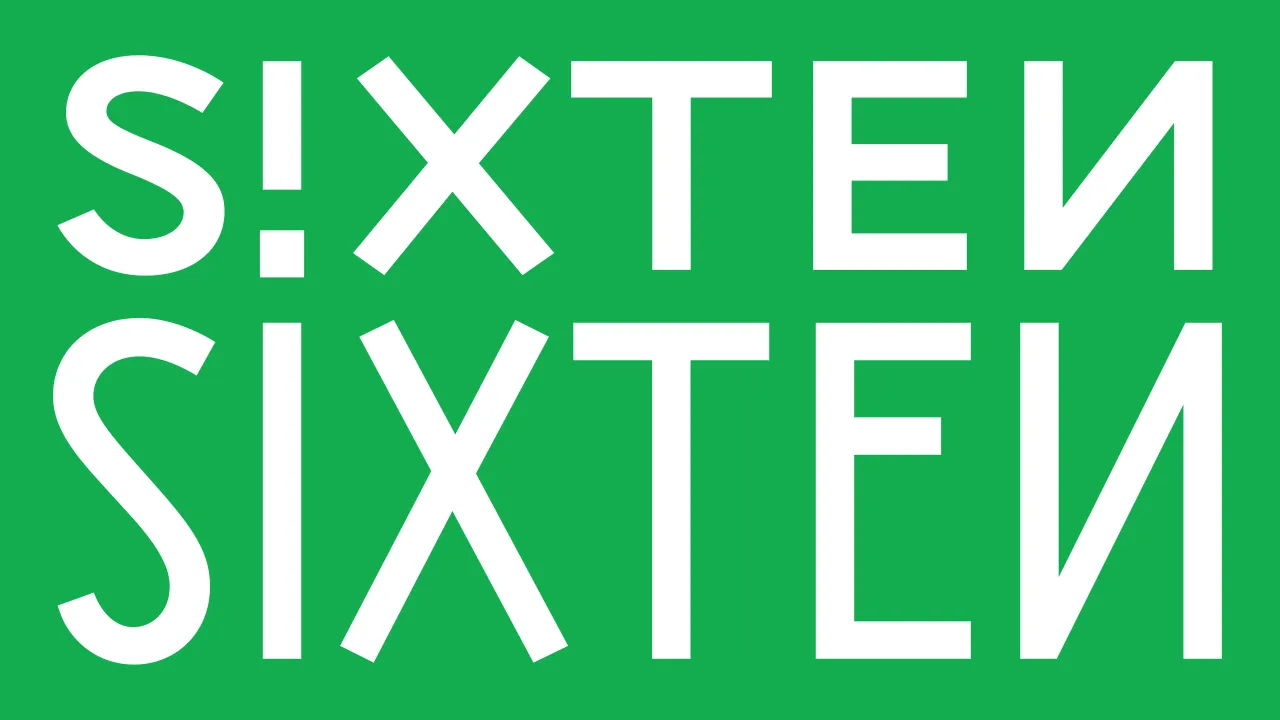
Heltar by The Northern Block
As we enter autumn, it feels like time for a fresh start. And so, as a designer, it's the perfect occasion to delve into the latest fonts on the market and consider updating your typographical toolkit.
To help you out, we've carefully curated a diverse selection of typefaces from leading foundries and designers, each of which brings its own unique character and functionality to the table.
From typefaces inspired by children's handwriting to those rooted in mid-20th-century Italian design, these fab new releases demonstrate the ongoing evolution and innovation in type design and offer plenty of scope to reinvigorate your design work.
So, whether you're working on branding projects, editorial layouts, or digital interfaces, let's explore the standout typefaces of September and discover how they can inspire and enhance your creative projects.
Peasy by Delve Fonts
Peasy, designed by Peter Cho, is a friendly, modern sans-serif typeface that balances readability and personality.
With its open apertures, comfortable x-height, and low-contrast strokes, Peasy offers excellent legibility across various applications. That makes it well-suited for editorial design in print and digital formats.
Its pleasant reading experience makes it ideal for long-form content, while its subtle flair adds character to headlines and pull quotes. Peasy could also excel in user interface design, signage and branding projects where a balance of clarity and warmth is desired.
More broadly, the typeface's broad language support, including Vietnamese and numerous African and Oceanic languages, makes it a versatile choice for global projects. Furthermore, OpenType features, such as small caps, old-style numerals and thoughtful stylistic alternates, provide a rich toolkit for creating nuanced typographic compositions.
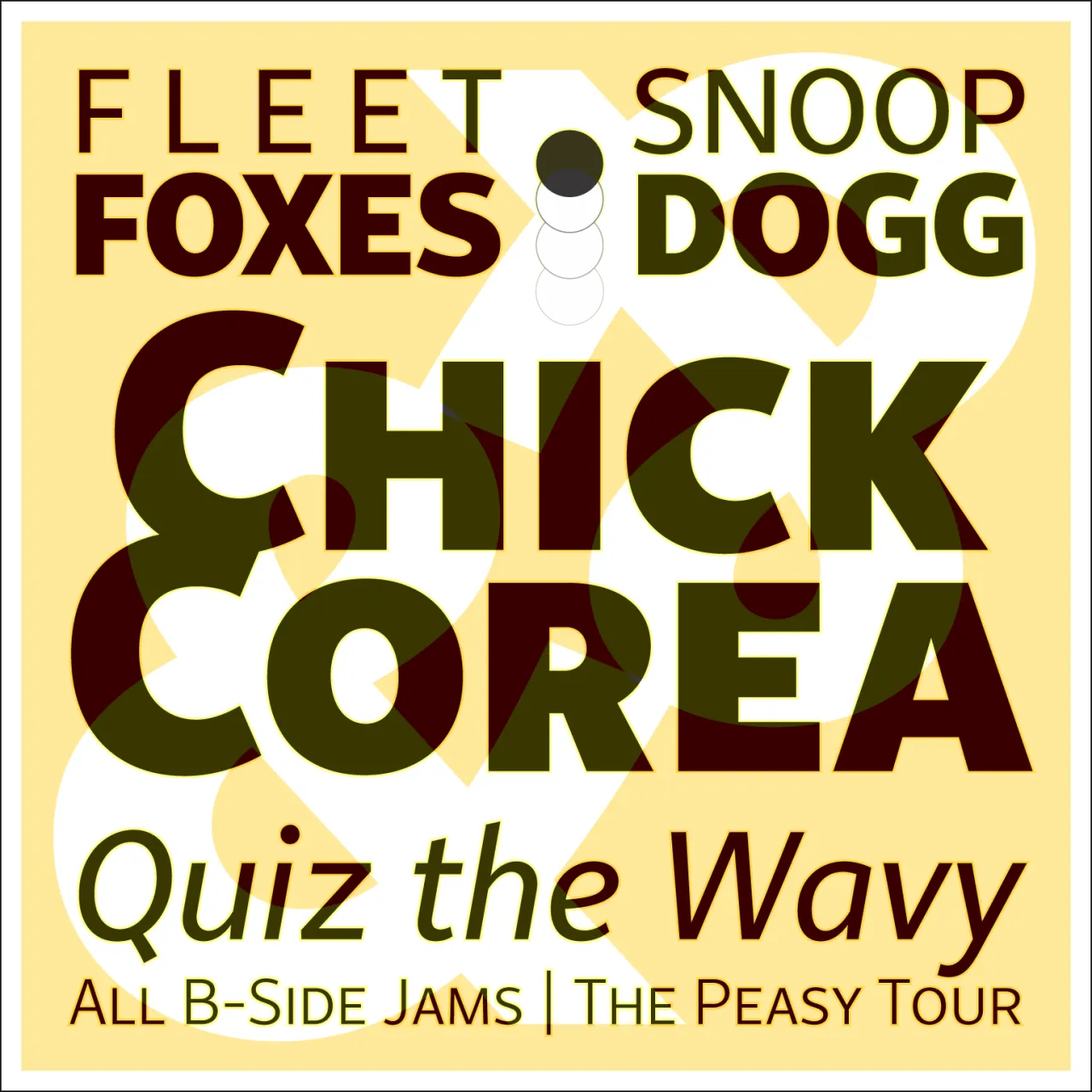
Peasy by Delve Fonts
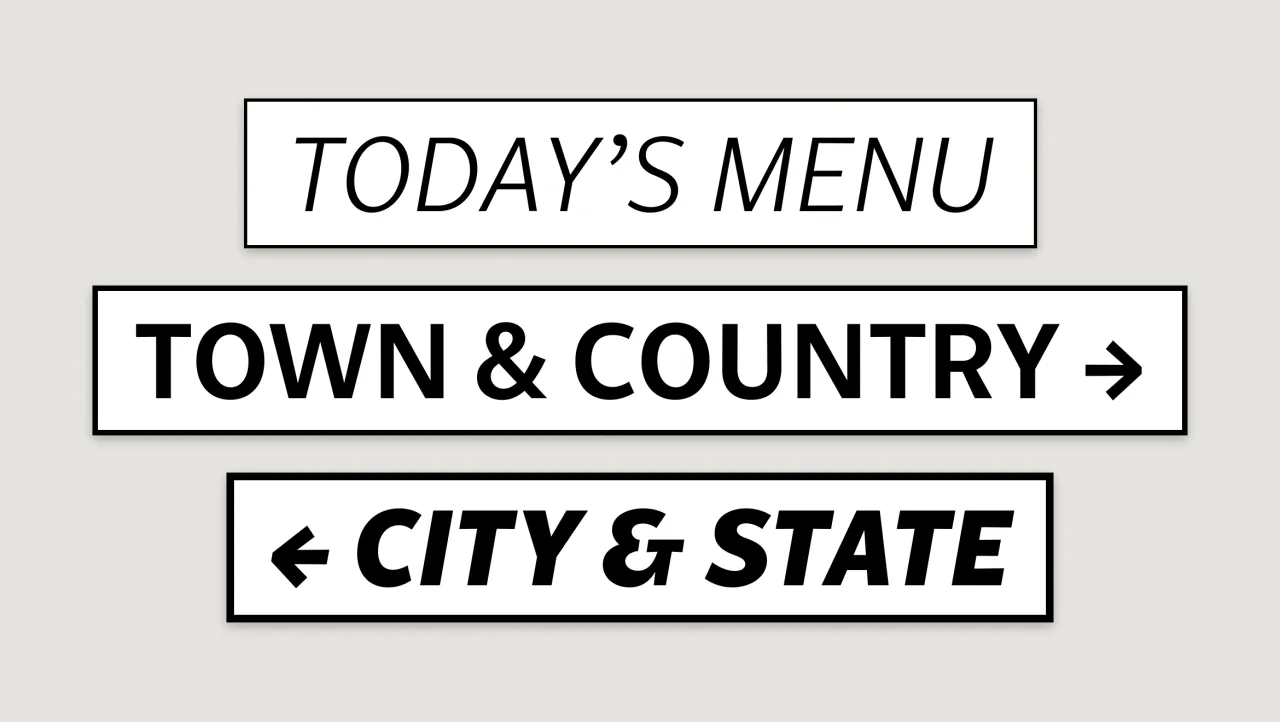
Peasy by Delve Fonts
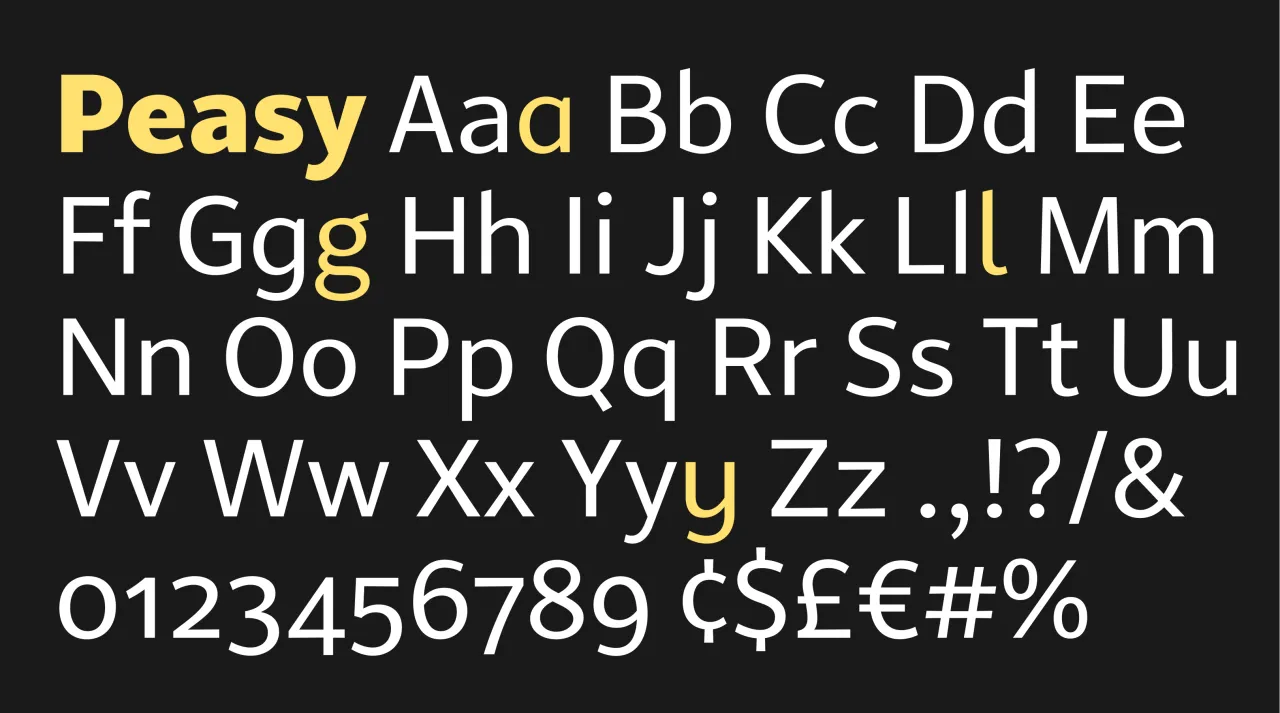
Peasy by Delve Fonts
Heltar by The Northern Block
Created by Jonathan Hill of The Northern Block, Heltar is a neo-grotesque typeface that pays homage to Helvetica while carving out its own distinct identity.
This typeface reimagines classic design principles for the digital age, featuring carefully crafted letterforms with optical precision and subtle corrections. Heltar's design incorporates innovative approaches to white space and stroke contrast, resulting in a typeface that feels both familiar and refreshingly contemporary.
With its range of weights and styles, Heltar is exceptionally versatile. Its thinner grades make it perfect for sleek, modern tech branding and user interfaces. As you move up to the bolder weights, Heltar takes on a more dramatic presence, suitable for impactful headlines and display text.
This typeface would be an excellent choice for forward-thinking brands, particularly in the technology, fashion or design sectors. It's also well-suited for editorial design, corporate communications, and anywhere a balance of authority and innovation is required.
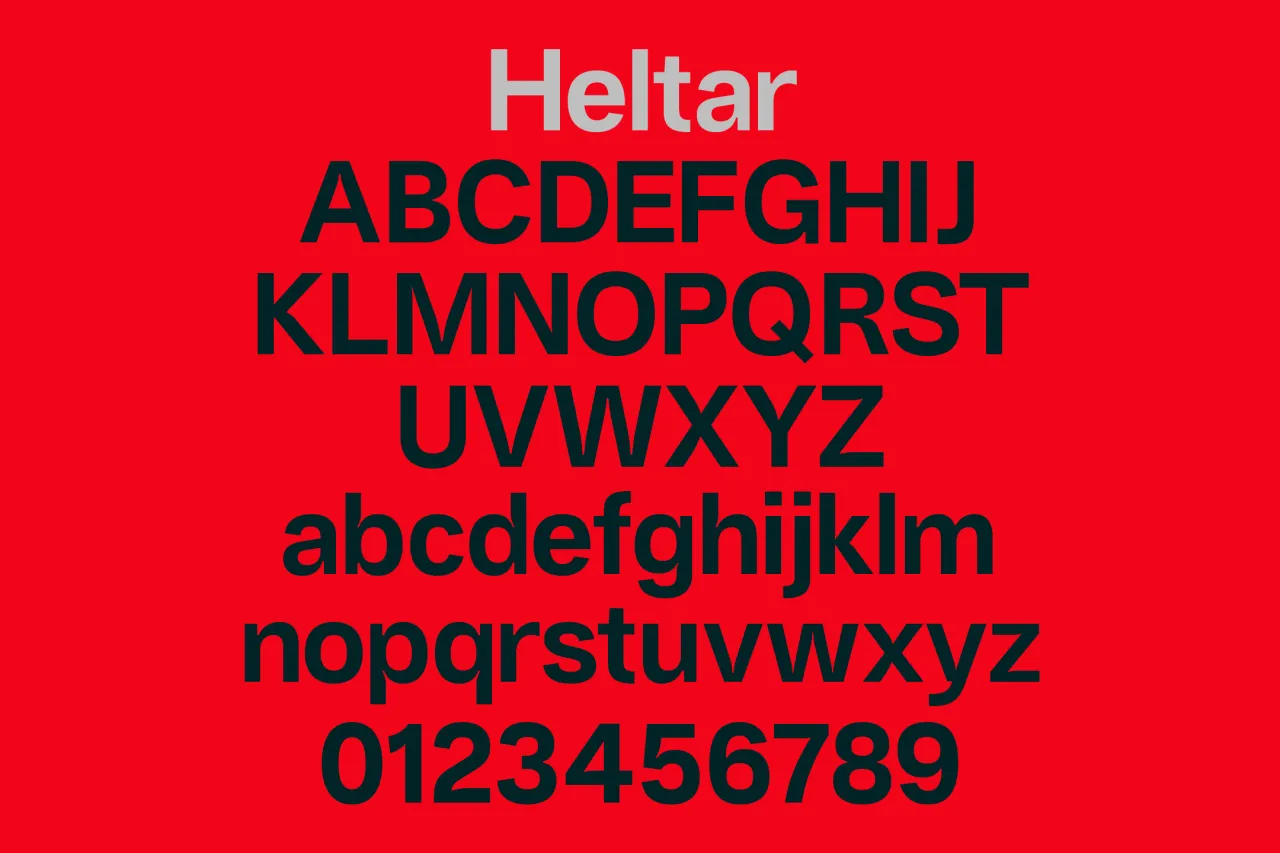
Heltar by The Northern Block
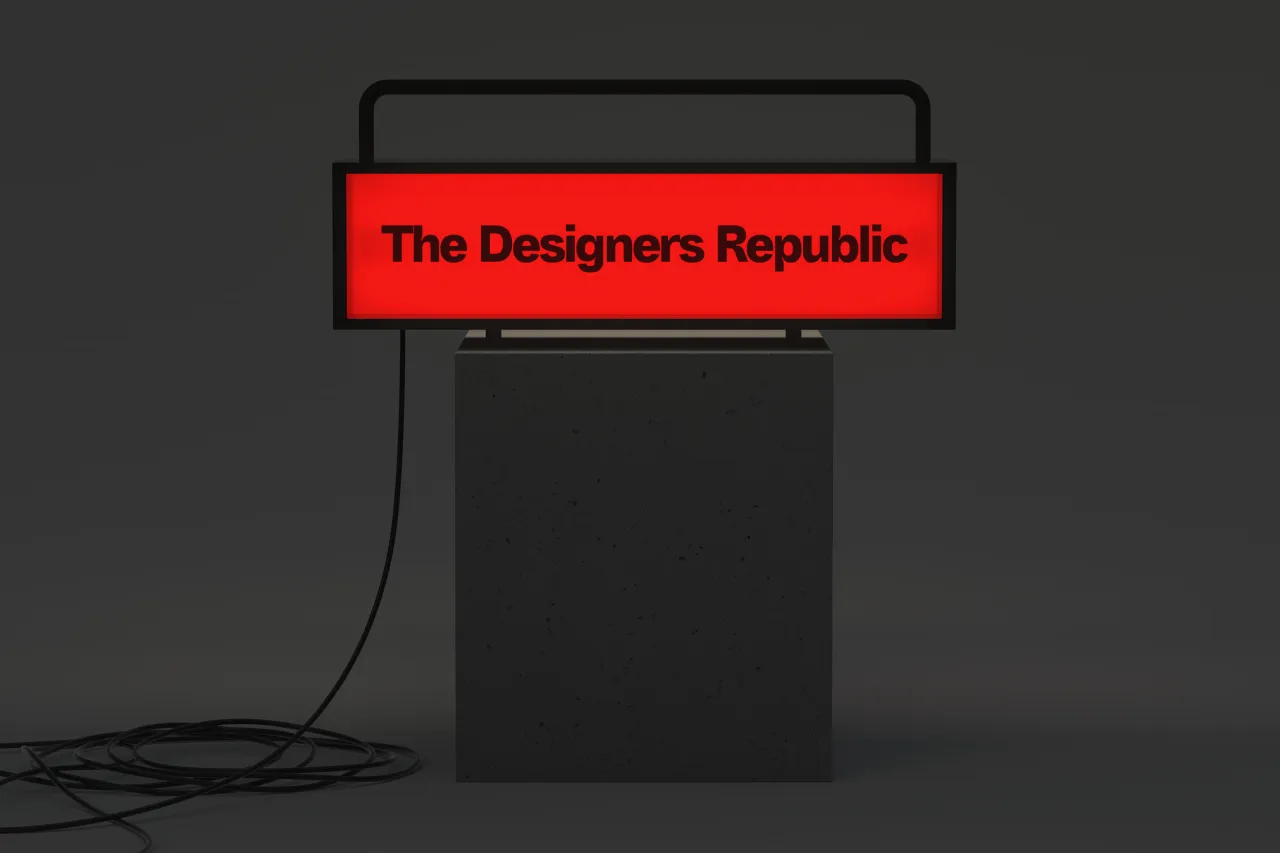
Heltar by The Northern Block
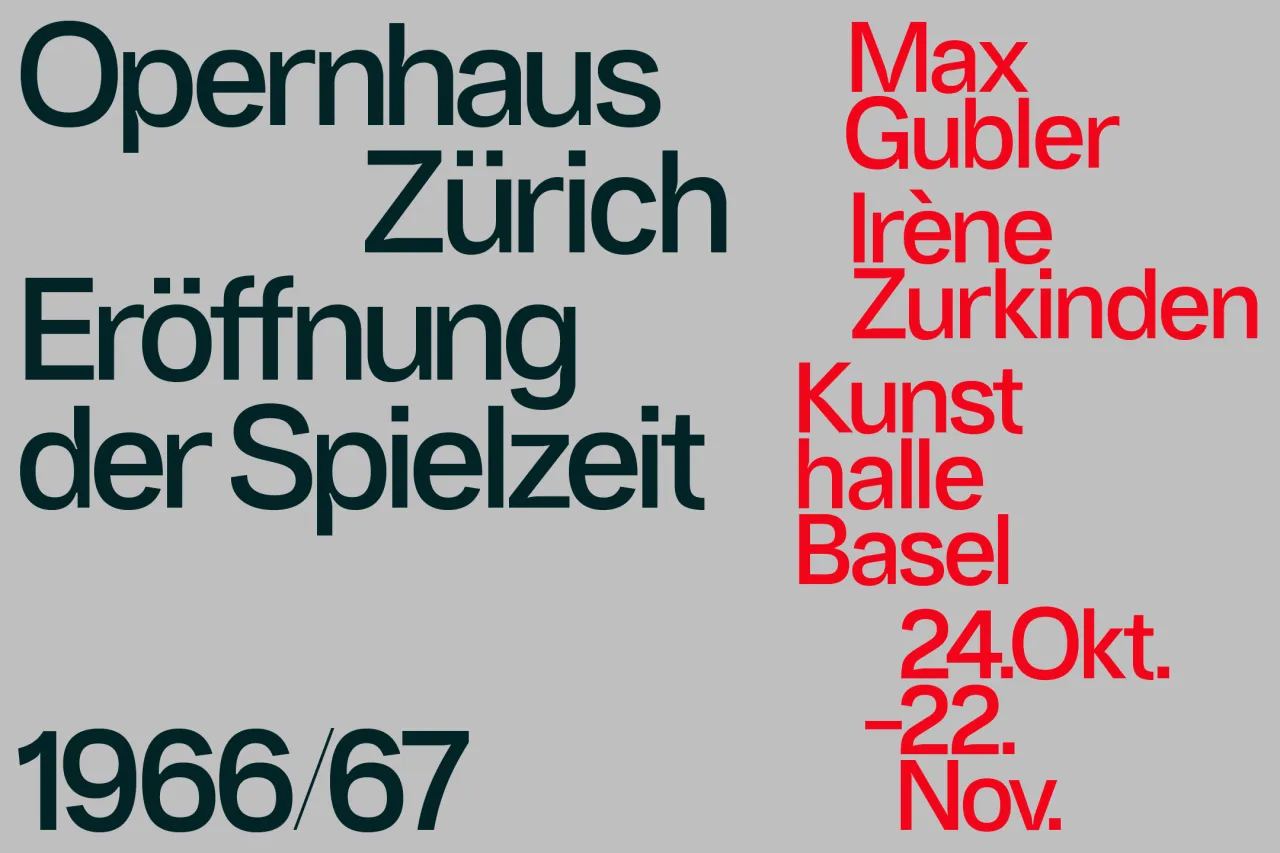
Heltar by The Northern Block
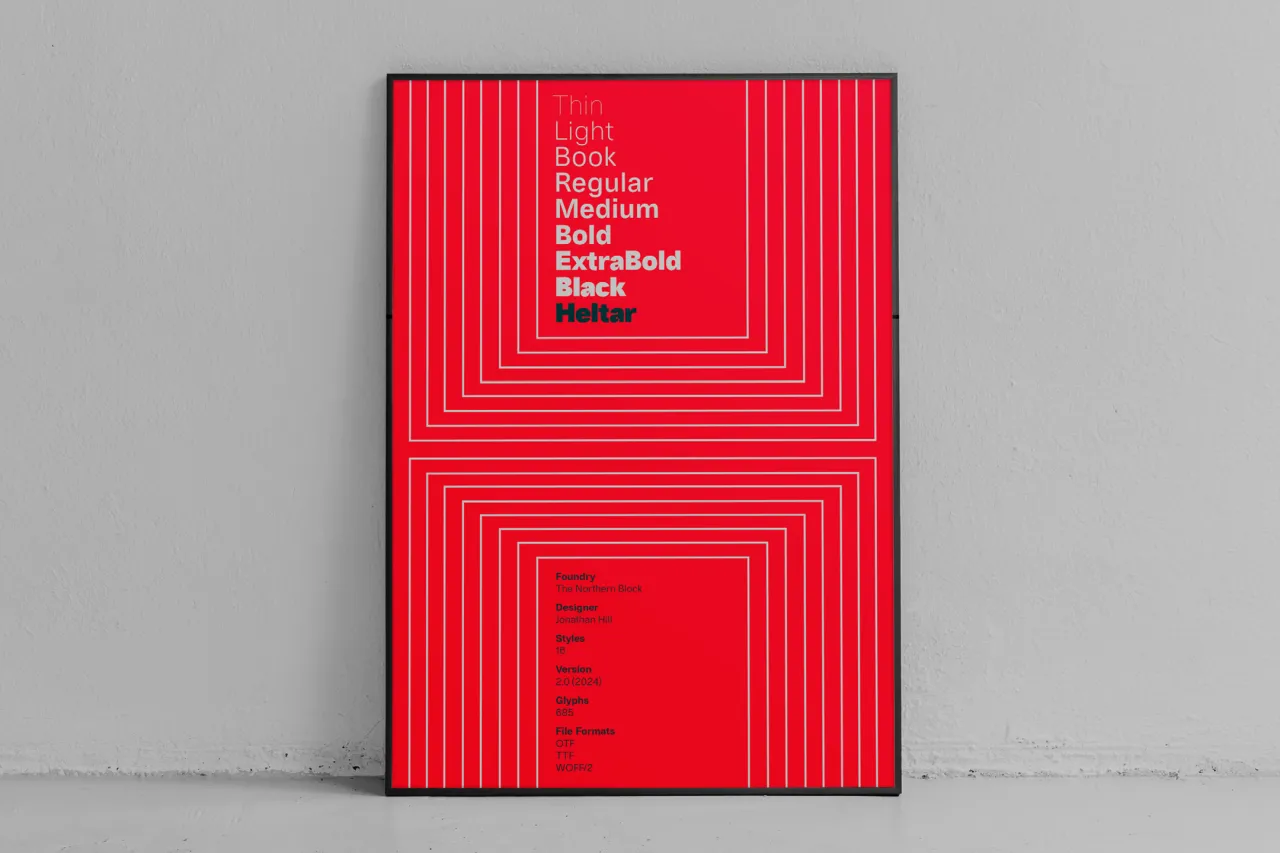
Heltar by The Northern Block
Astra by Positype
Astra, the latest release from Neil Summerour's Positype, arrives as part of a significant expansion of the foundry's offerings. This new typeface exemplifies Positype's commitment to creating versatile and expressive typefaces that cater to a wide range of design needs.
Astra is a sophisticated geometric sans serif typeface, offering nine weights ranging from delicate thin to robust bold. Its design beautifully merges geometric precision with subtle humanist details, creating a clean yet inviting appearance. It also supports an incredible 286 languages.
This balance ensures Astra is versatile, making it a particularly good choice for branding projects. Overall, the typeface exudes modernity and elegance and is a great option for designers seeking a fresh and aesthetically pleasing font to elevate their work.
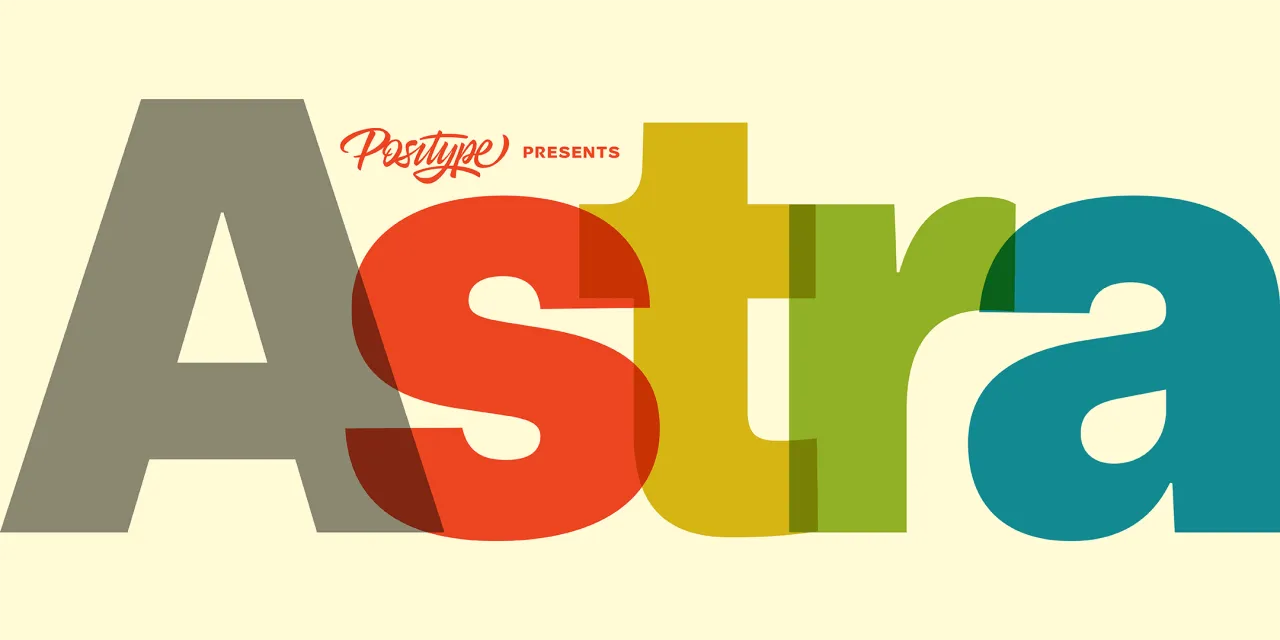
Astra by Positype
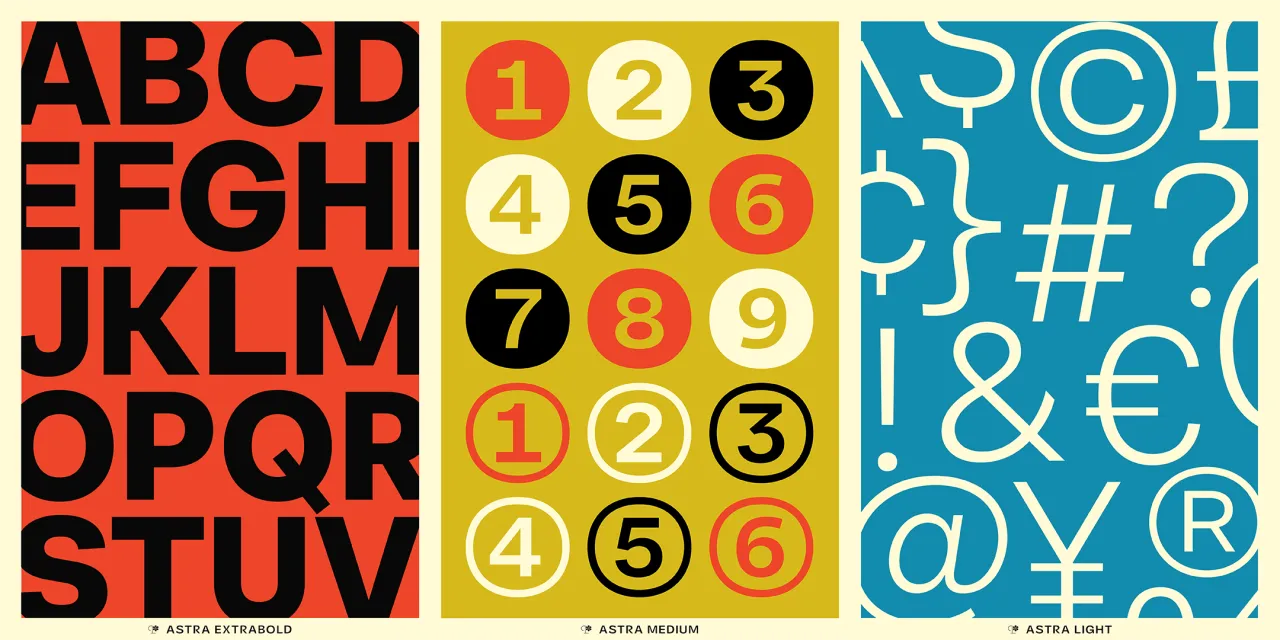
Astra by Positype
Sixten by NM Type
Sixten, designed by Noel Pretorius and María Ramos of NM Type, is a playful and innovative typeface inspired by the intuitive letter shapes drawn by a four-year-old child. It sounds a bit mad, but the results are superb: a font that balances childlike creativity with professional design sensibilities.
As you might expect, this typeface is perfect for projects that require a touch of whimsy without sacrificing readability. More specifically, its mix of conventional and rebellious letterforms makes it ideal for children's books, educational materials, and playful branding projects. It could also be an excellent choice for ad campaigns targeting younger people or, indeed, any design aiming to capture a sense of creativity and spontaneity.